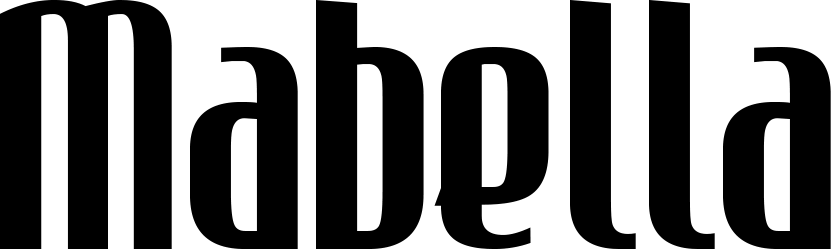
Mabella Font
The typography you are visualizing will come to reality with this interesting and unique condensed sans-serif font. Mabella offers bold and long letters with a narrow width, which saves space and gives your design a more noticeable display.
All letterforms in a sociable and friendly appearance are keen to give a creative look to your coming typography. Last but not least, your success is guaranteed by utilizing this font in designing branding, logos, banners, adverts, flyers, and more.